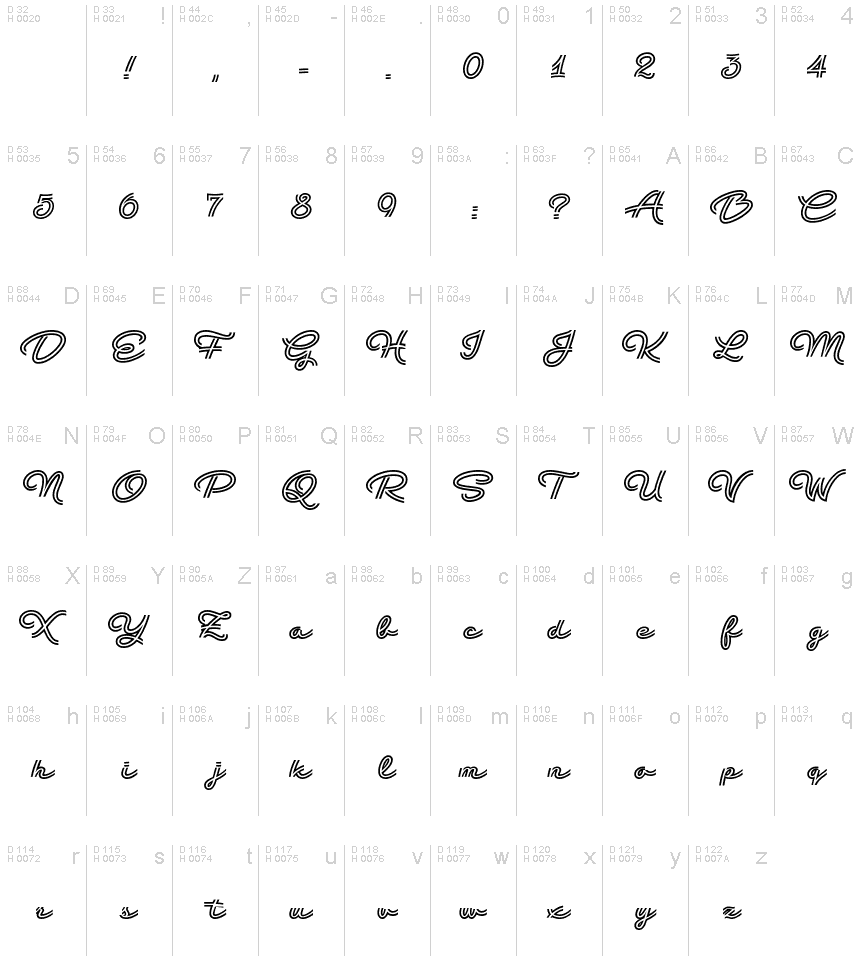
Retro Bistretto Outline
Retro Bistretto Outline, a unique creation by Roland Huse Design, stands out as a handwritten font with a twist of nostalgia. Its semi-bold weight paired with an expanded width gives it a presence that is both assertive and welcoming. The outline style of this member of the Retro Bistretto family exudes an aesthetic charm that harkens back to vintage signage and art deco design, making it perfect for projects that aim to capture the essence of yesteryear.
The font's character is imbued with an artistic flair that suggests a bespoke touch; each letter crafted as though by the hand of an experienced calligrapher. Despite its retro roots, Retro Bistretto Outline possesses a modern clarity that makes it highly legible and versatile for various creative endeavors. Whether you're designing logos, posters, invitations or branding materials, this font offers endless possibilities to infuse your work with personality and timeless elegance.